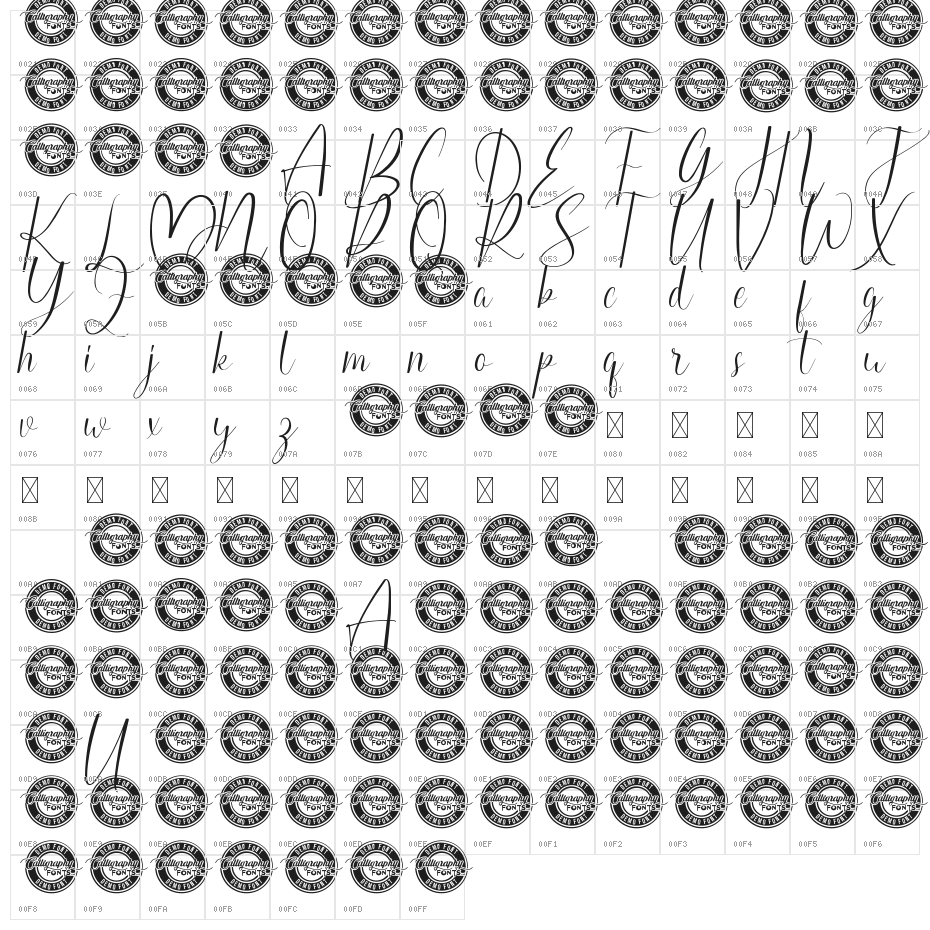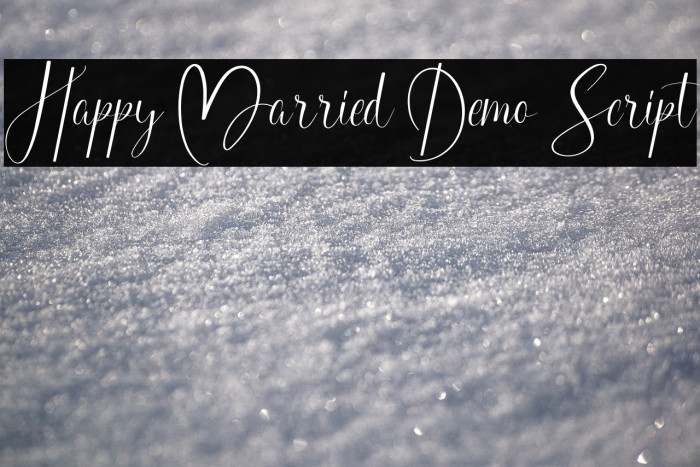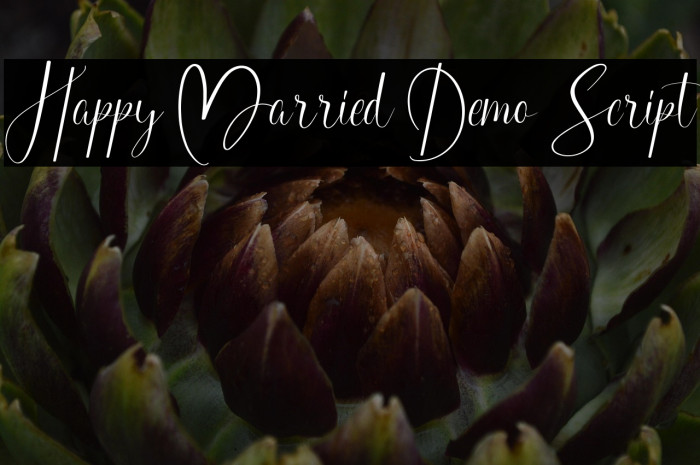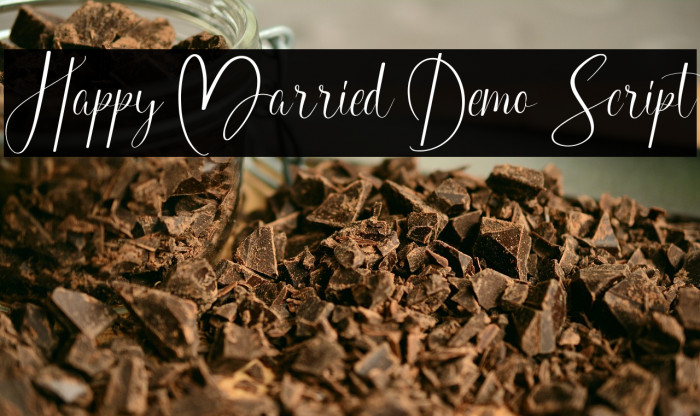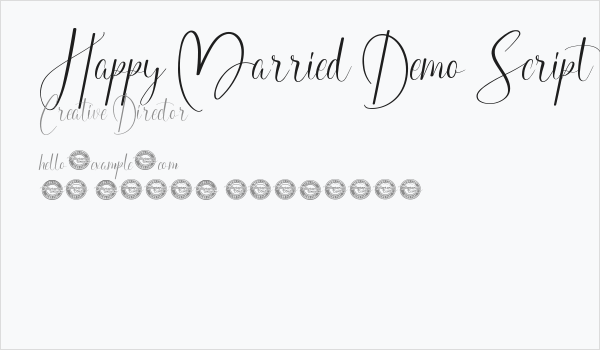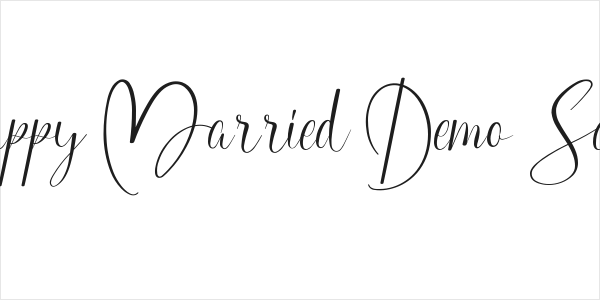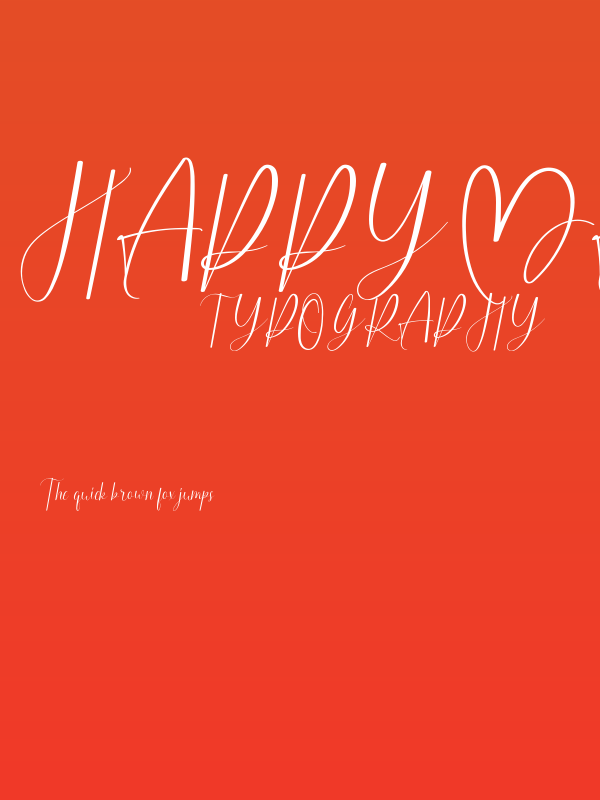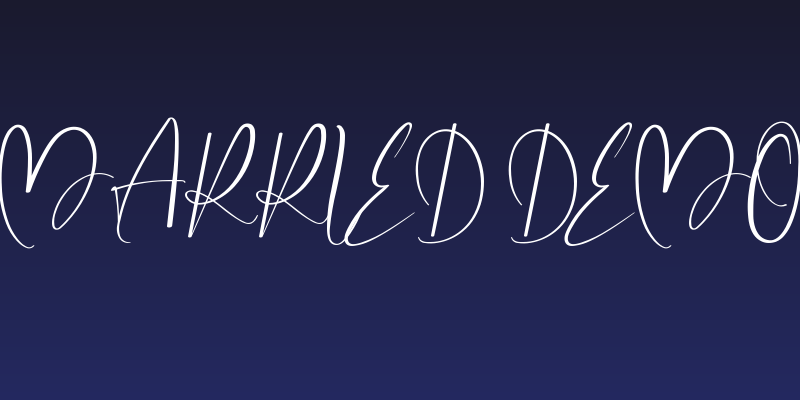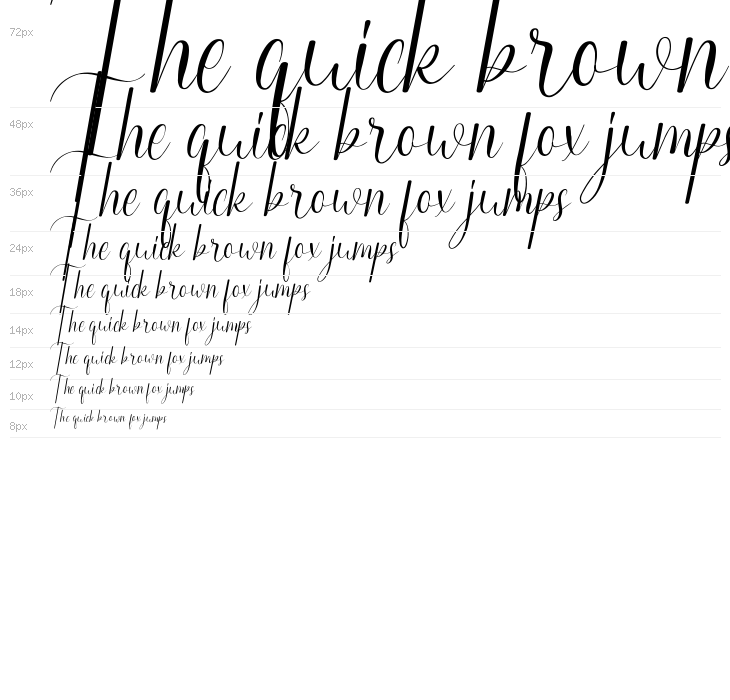
Happy Married Demo Script Font
Happy Married Demo Script Description
This elegant script font features a flowing, cursive style with a modern twist. The uppercase letters are tall and slender, with graceful loops and swirls that add a touch of sophistication. The lowercase letters maintain a consistent flow, with some characters extending below the baseline, enhancing the font's fluidity. The numbers and special characters are designed to match the overall aesthetic, ensuring a cohesive look. This font is perfect for adding a personal, handwritten touch to any project, while maintaining readability and style.